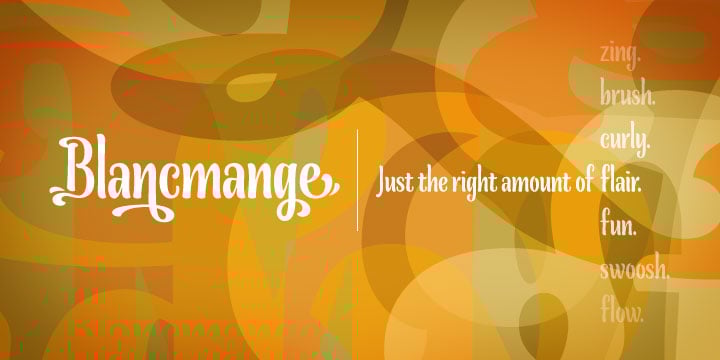
Blancmange Font is perfect for dessert menus, bakery branding, confectionery packaging, sweet shop signage, culinary magazines, food blog headers, recipe cards, and gourmet restaurant materials.
What makes Blancmange Font exciting is its deliciously playful character design that evokes the sweetness and creamy texture of its namesake dessert. The soft, rounded letterforms create an appetizing visual appeal that perfectly captures culinary charm and indulgence.
Blancmange Font family includes regular, bold, light, condensed, and decorative versions, plus special ornamental glyphs and food-themed symbols that enhance the culinary typography experience.
Satisfy your design appetite with Blancmange Font Free Download, the perfect ingredient for mouth-watering visual projects. This delightful typeface brings sweetness and sophistication to culinary branding while maintaining professional quality that appeals to discerning food enthusiasts. The carefully crafted letterforms feature gentle curves and inviting proportions that make text as appealing as the finest desserts. Culinary professionals and food marketers consistently choose this font for projects requiring warmth, approachability, and gourmet appeal. Its versatile nature works beautifully across both elegant fine dining applications and casual bakery settings, providing the perfect typographic foundation for any food-related venture. Experience the irresistible combination of visual charm and functional design that transforms ordinary menu items into tempting culinary invitations that engage customers and enhance their dining experience.